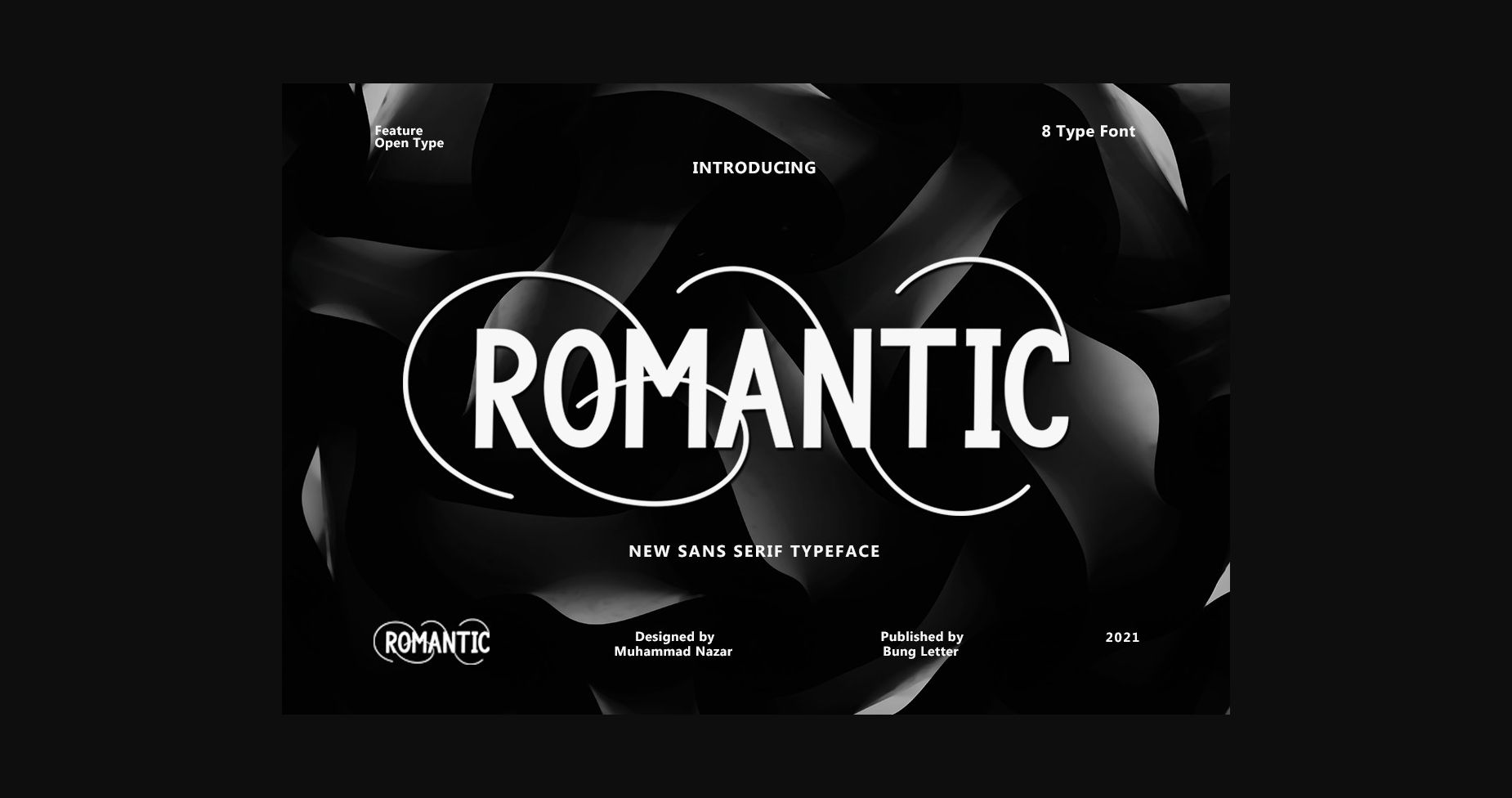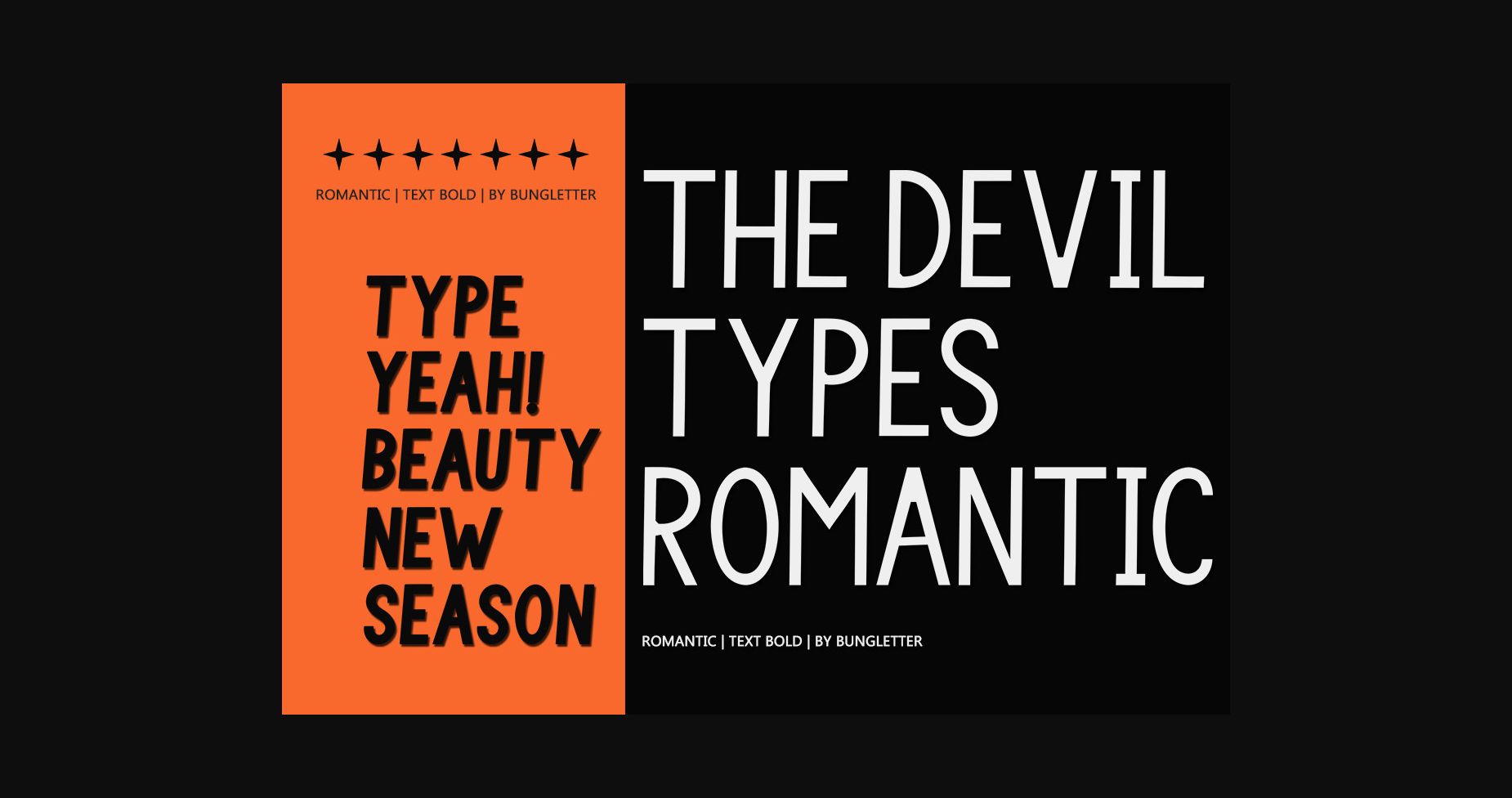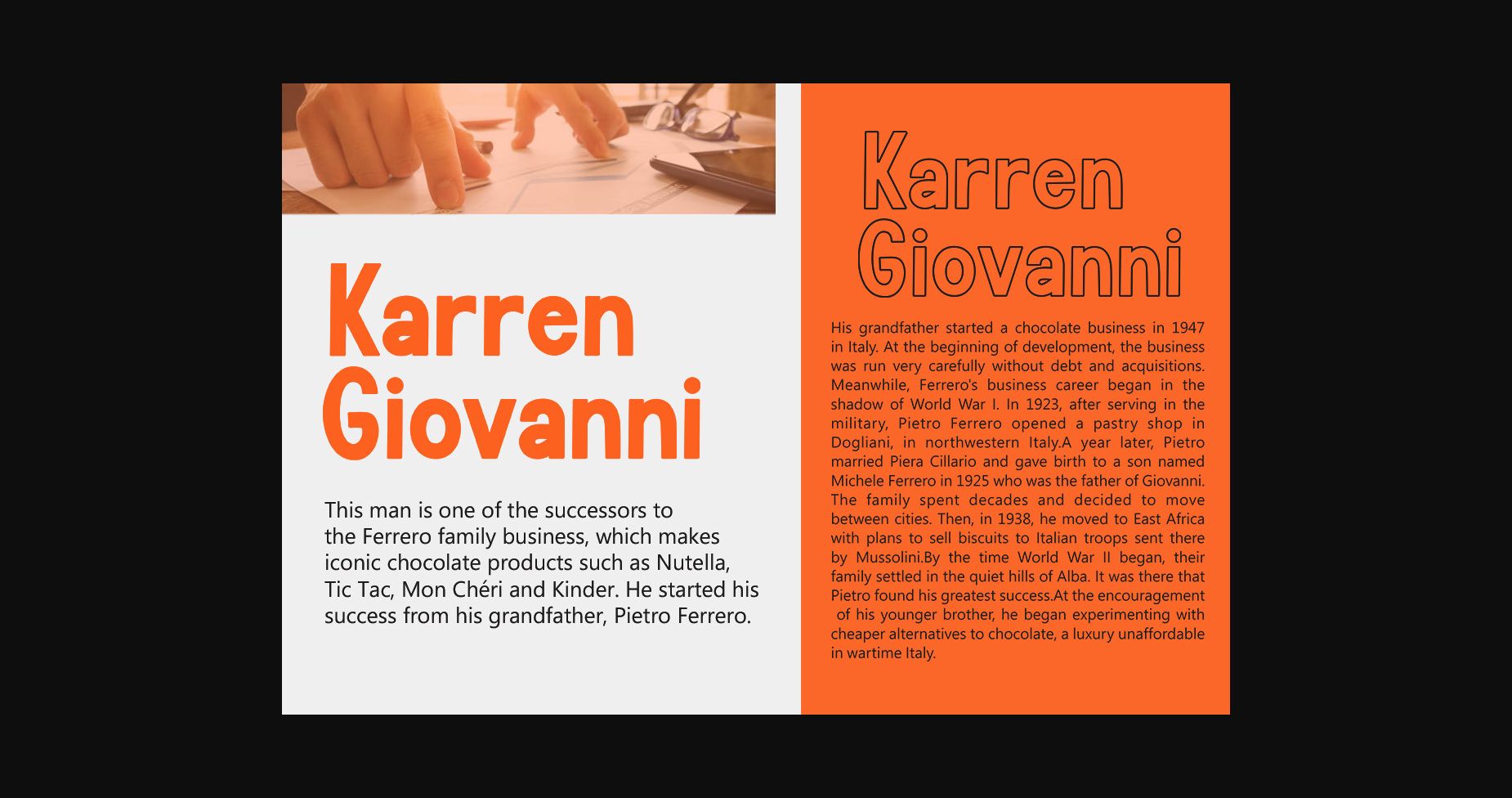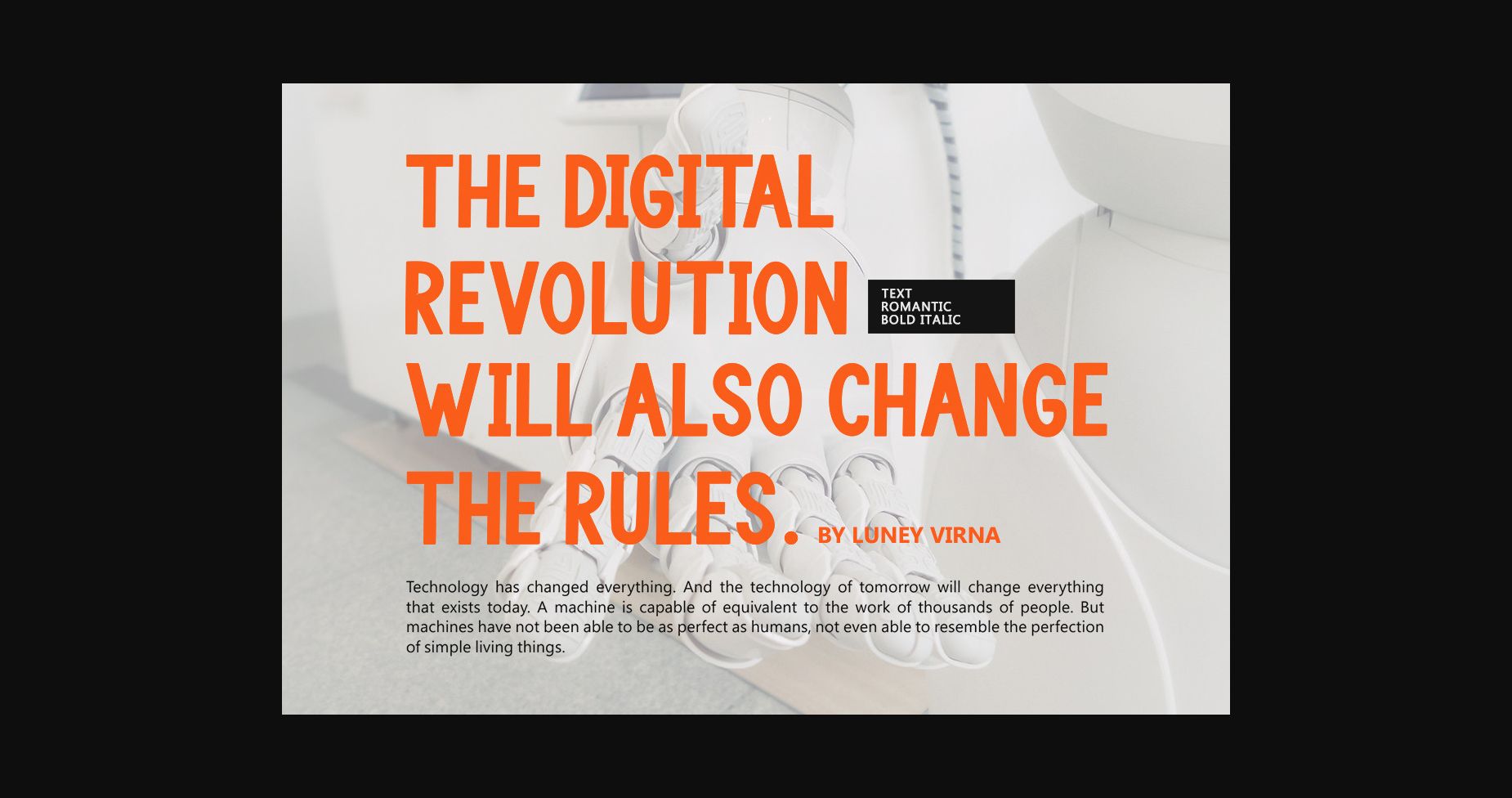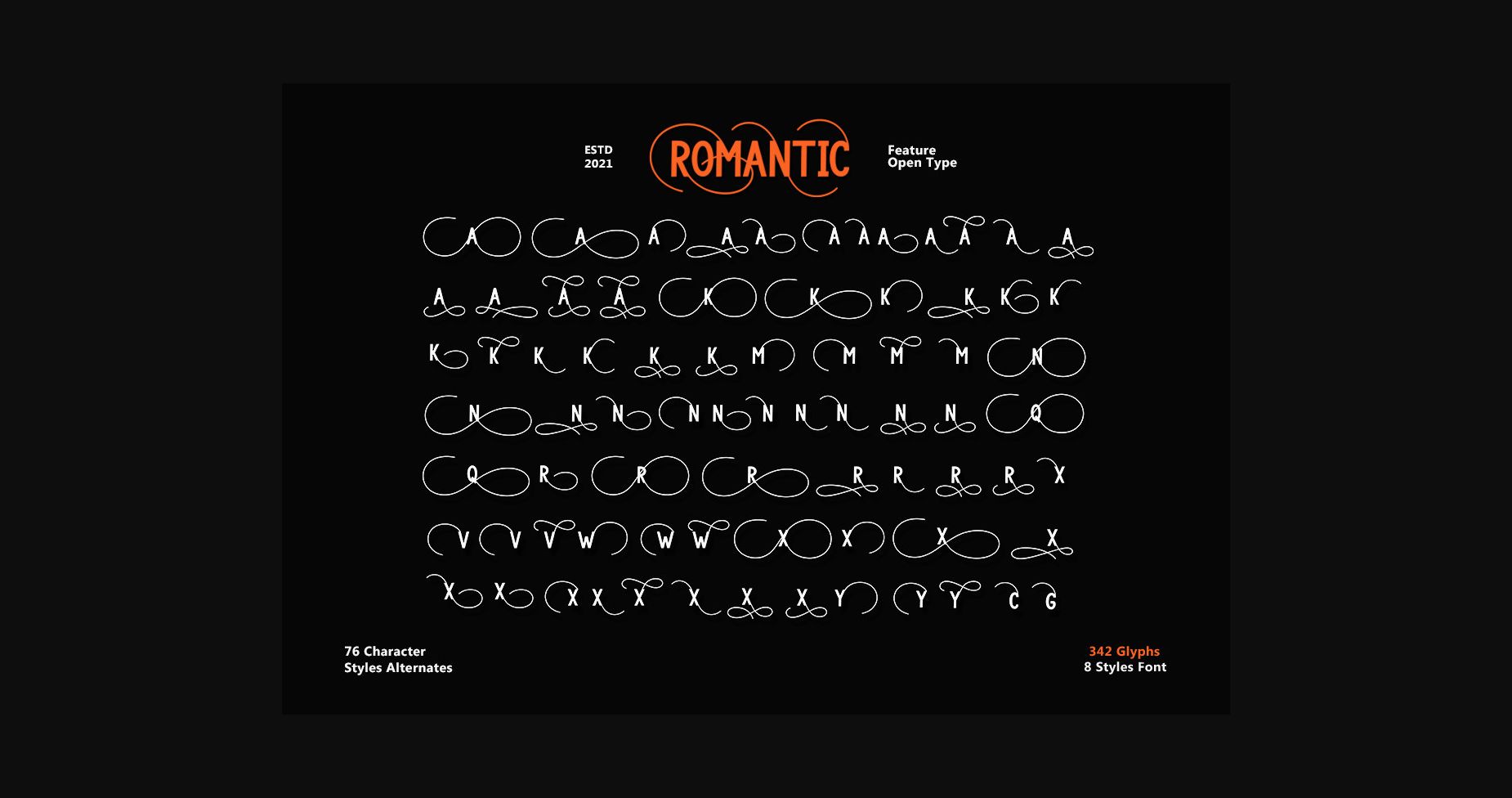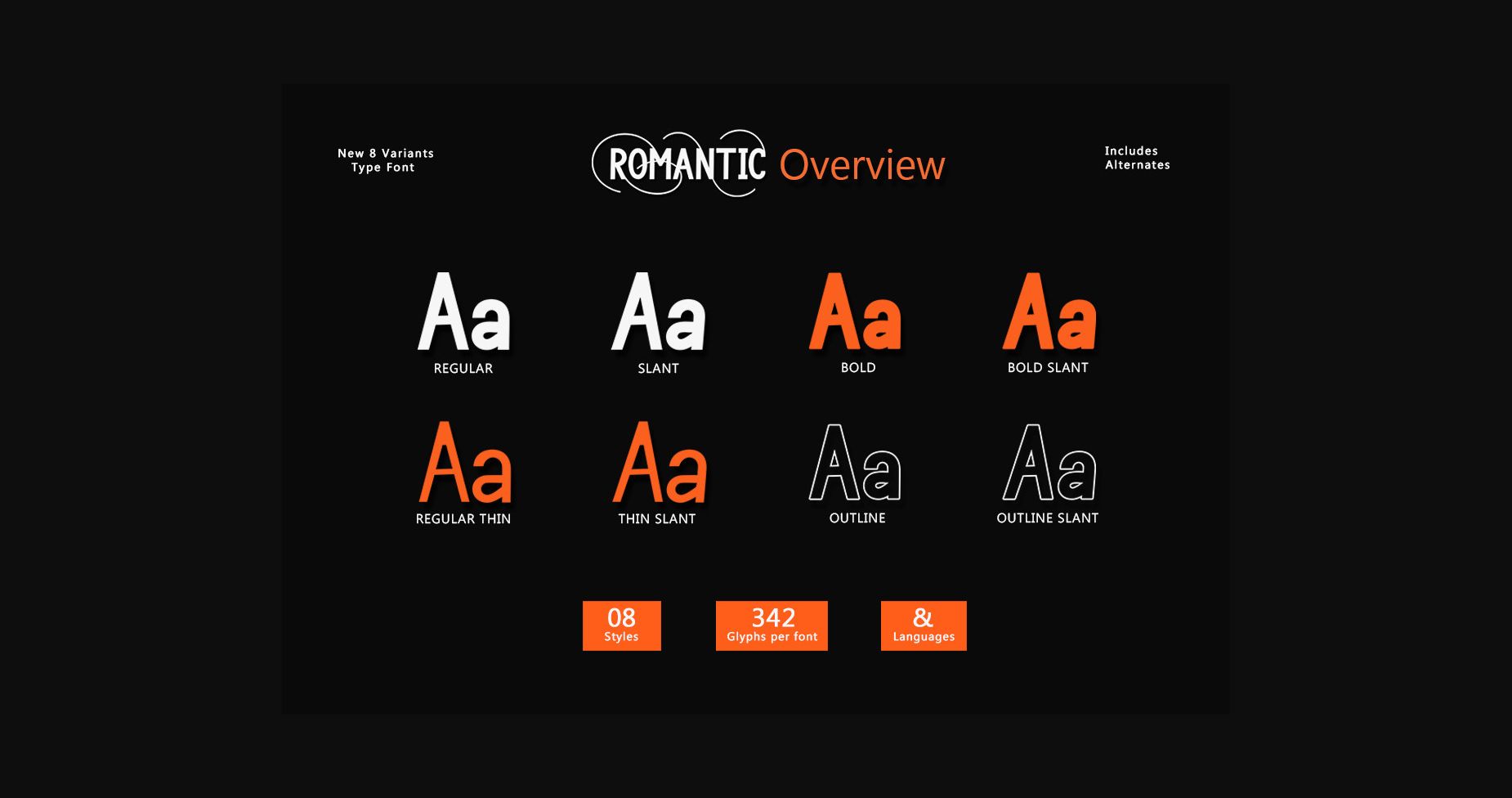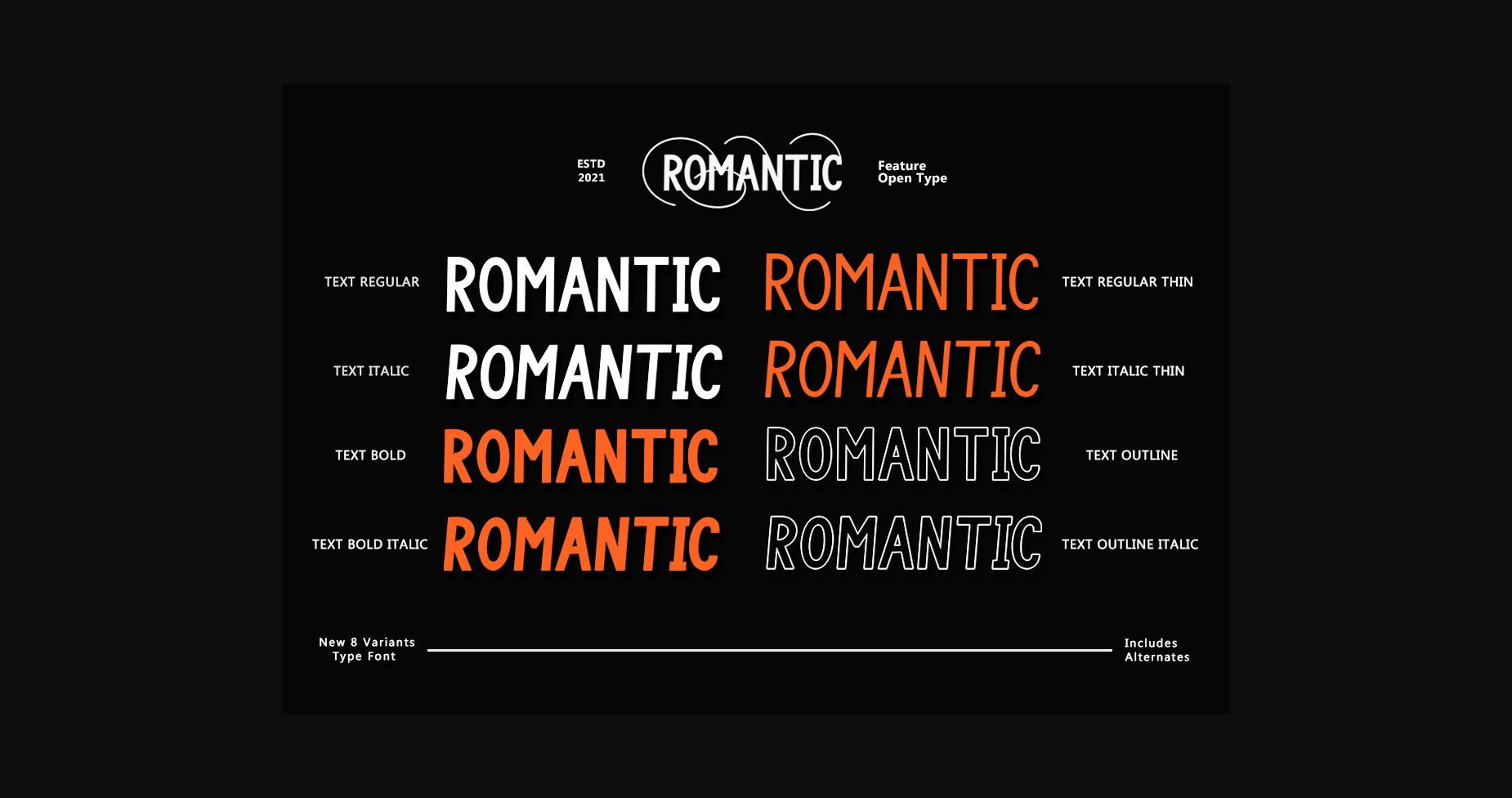
Romantic Family Font
About Romantic Family Font
Romantic is a versatile font family.Strong uppercase and smooth open lowercase are effective in a variety of applications and have 8 elegant styles.Geometric, almost monoline construction provides classic durability, smoothed with soft edges and vivid shapes. added improved multiple language support, and new glyphs including some currency symbols.